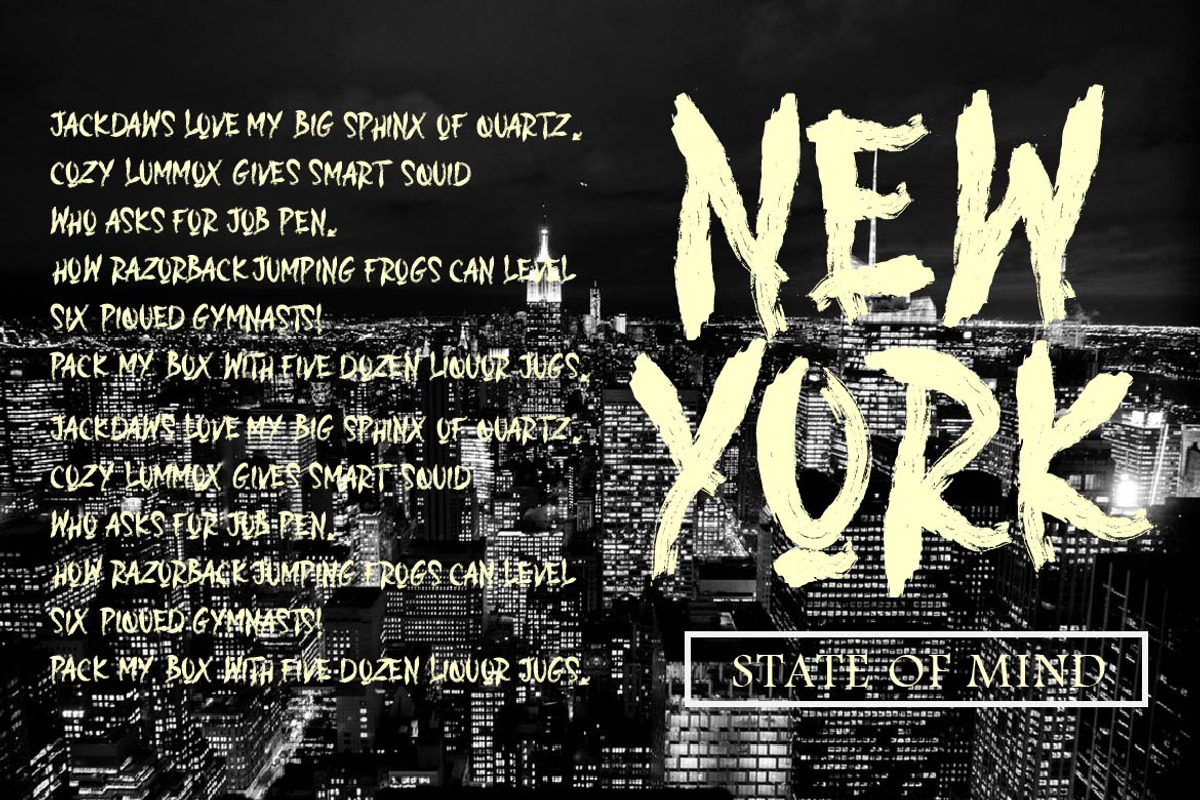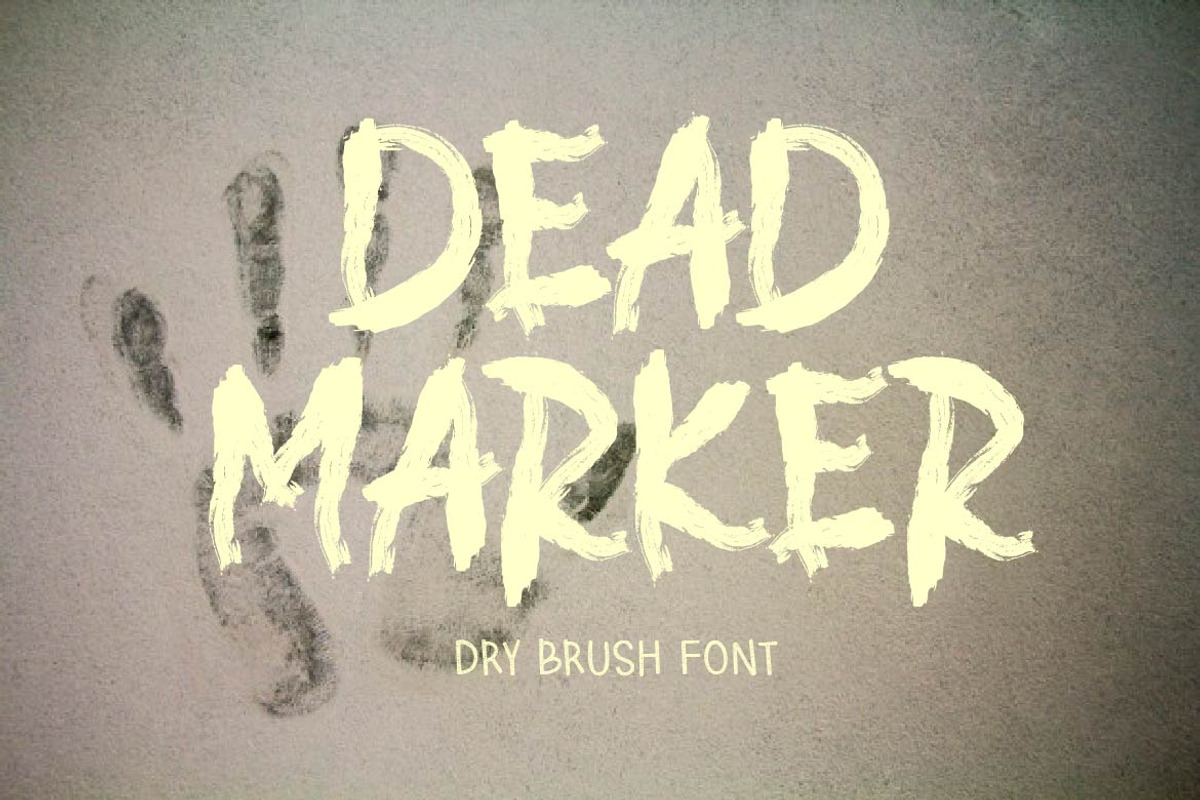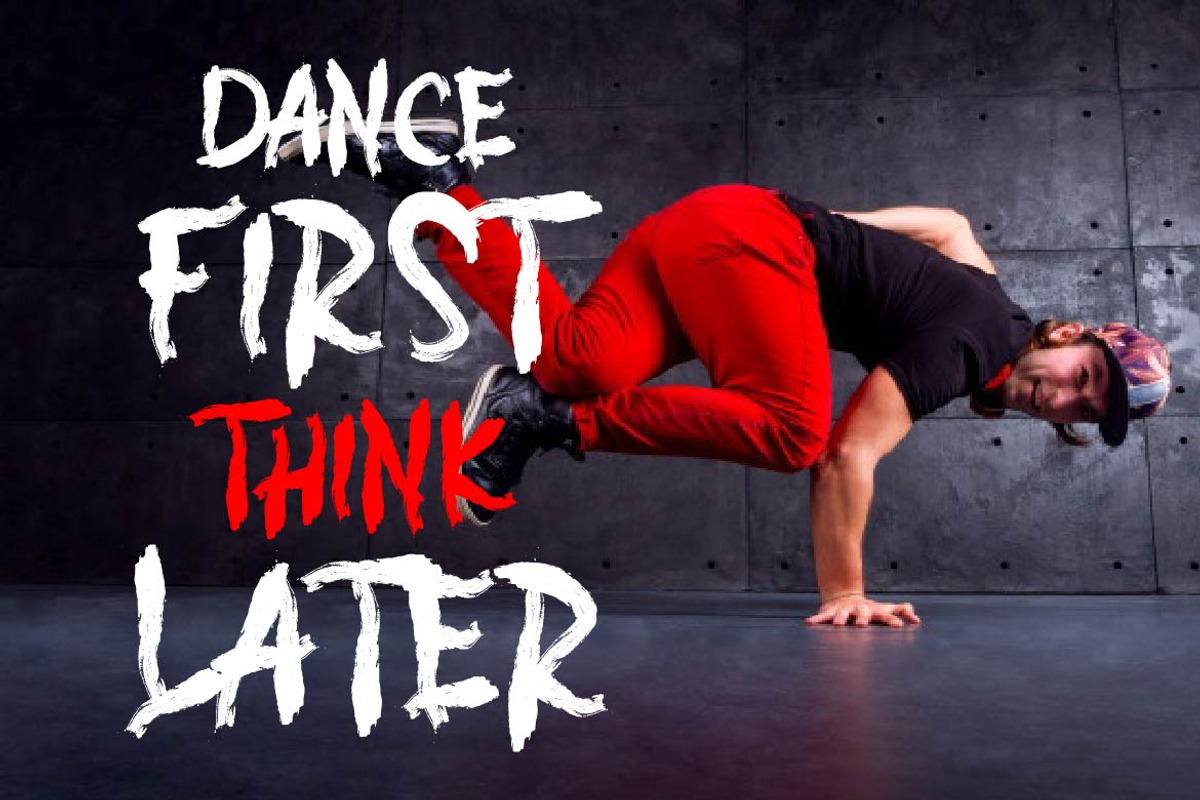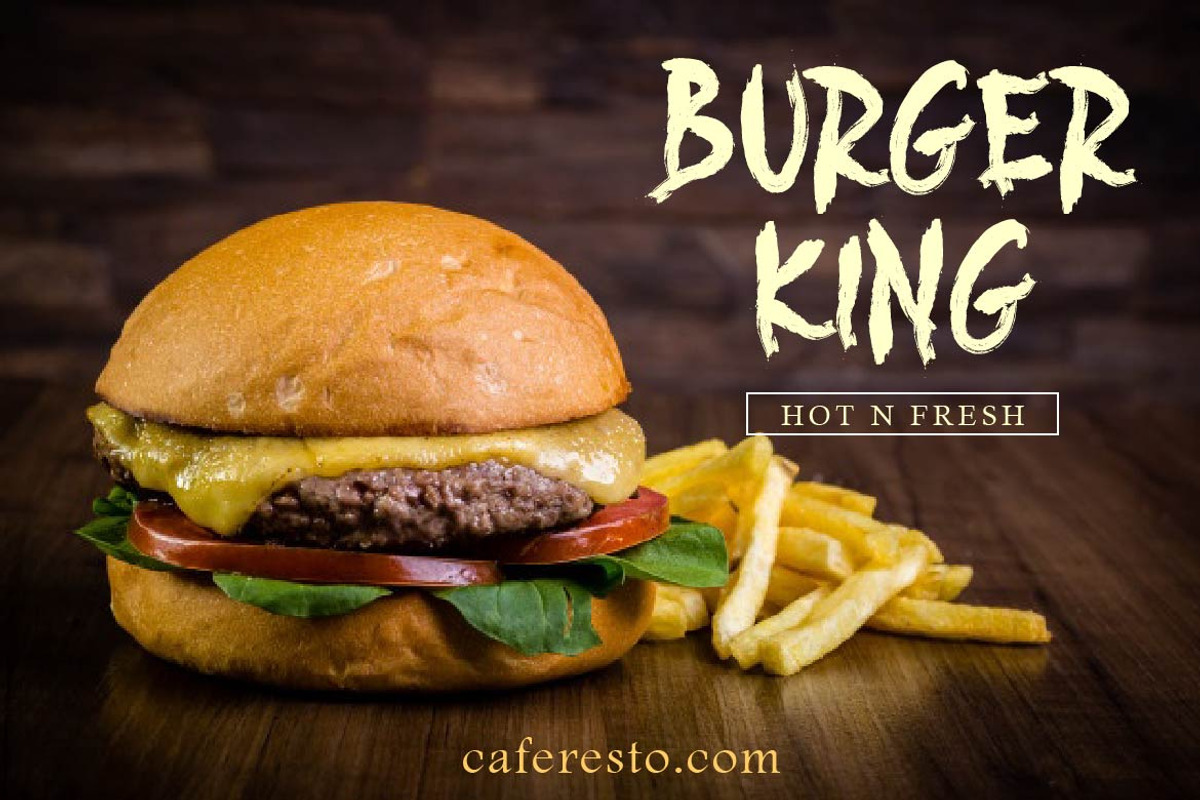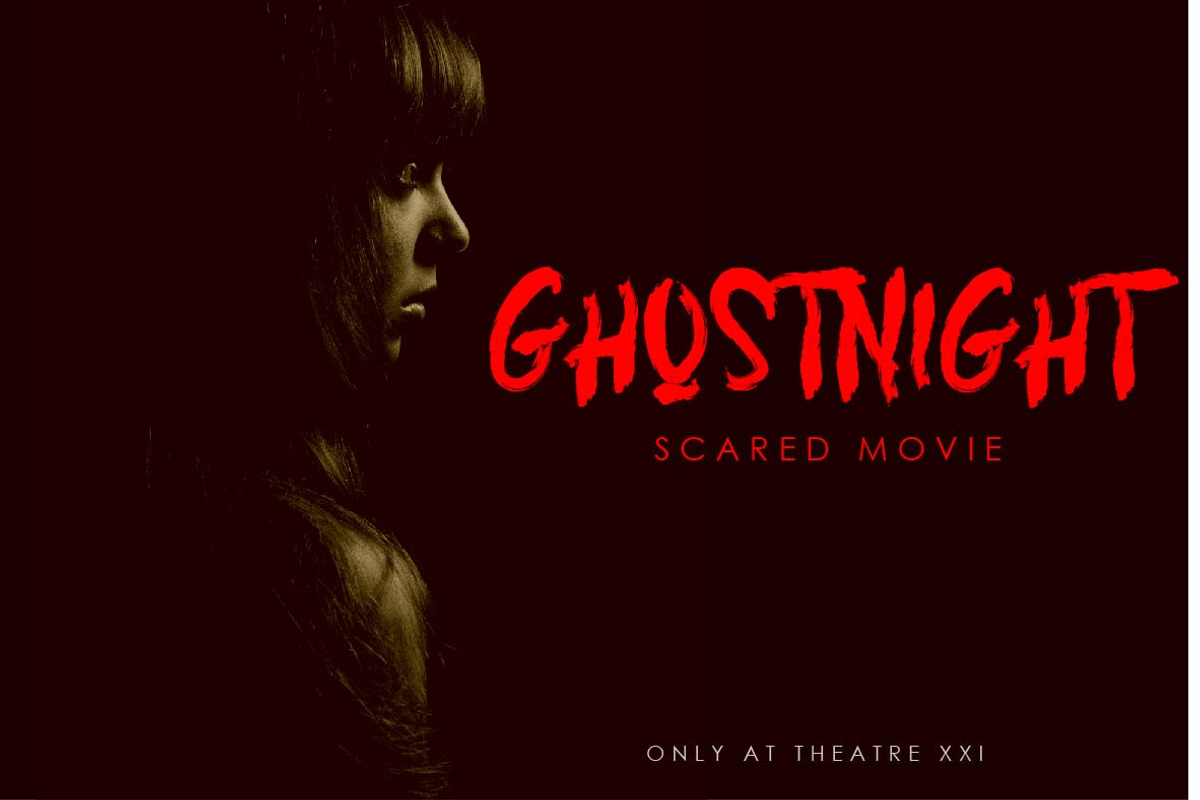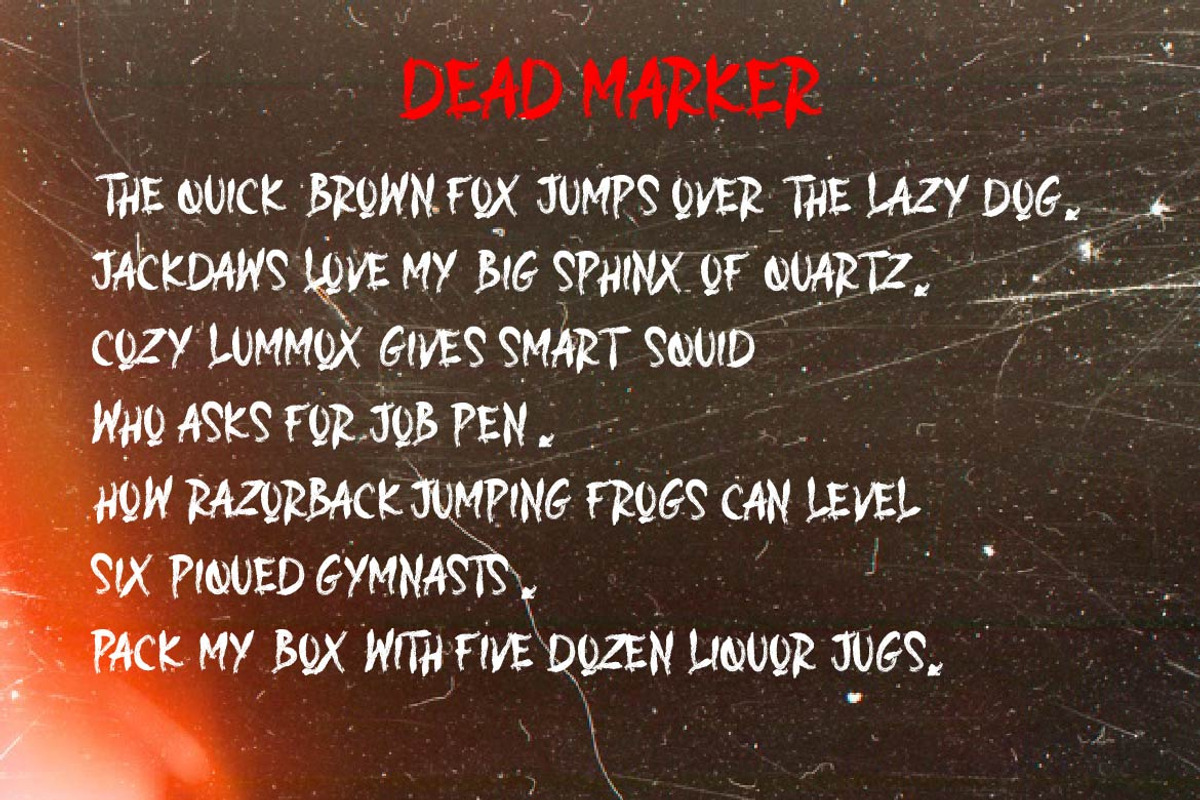
DEAD MARKER
This is a supercharged font, with natural brush, quick strokes and sharp details. Contains ALL CAPS, numbers, some punctuation and ligature. Perfect for challenging jobs, titles, movie,logos, apparel, t-shirts, hoodies, quotes, product packaging, or anything that needs a typographic turbo-boost and a typographic unique style.